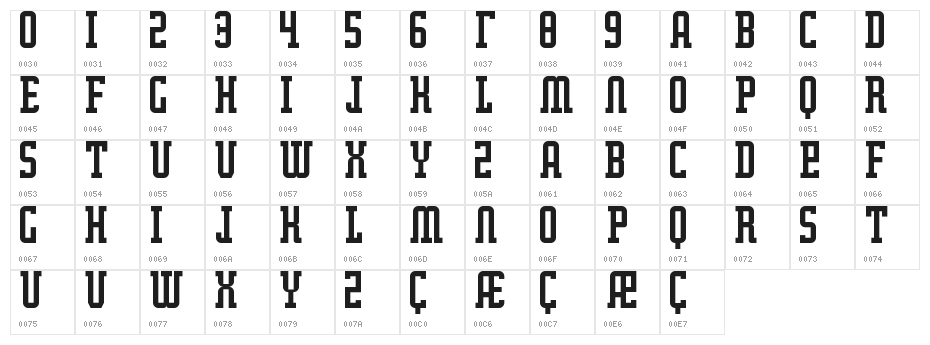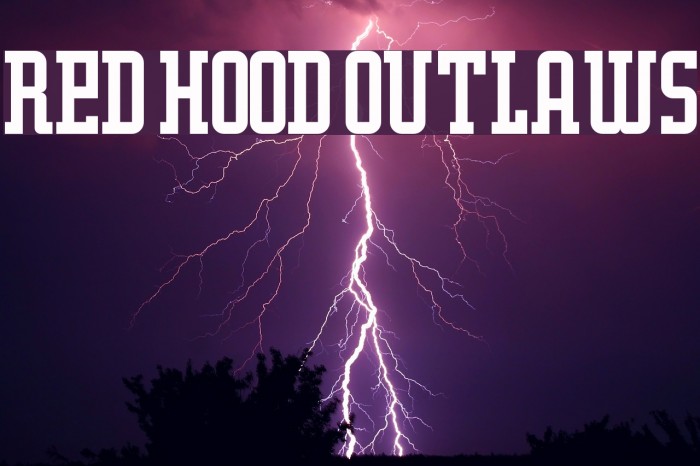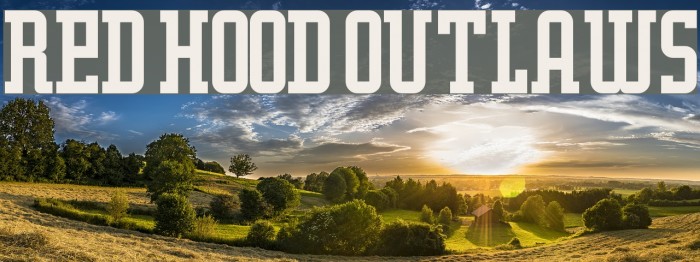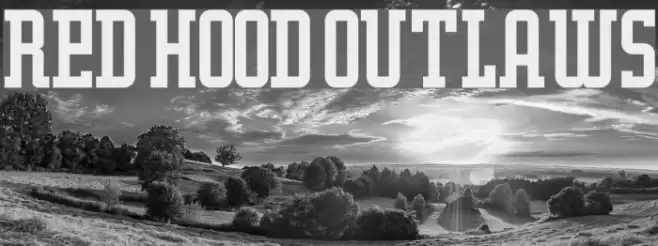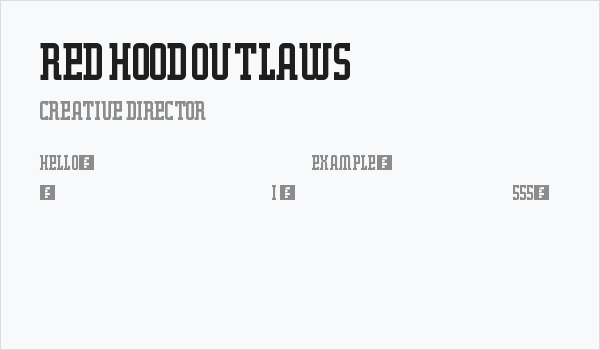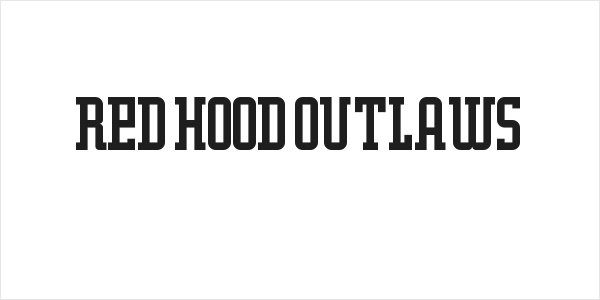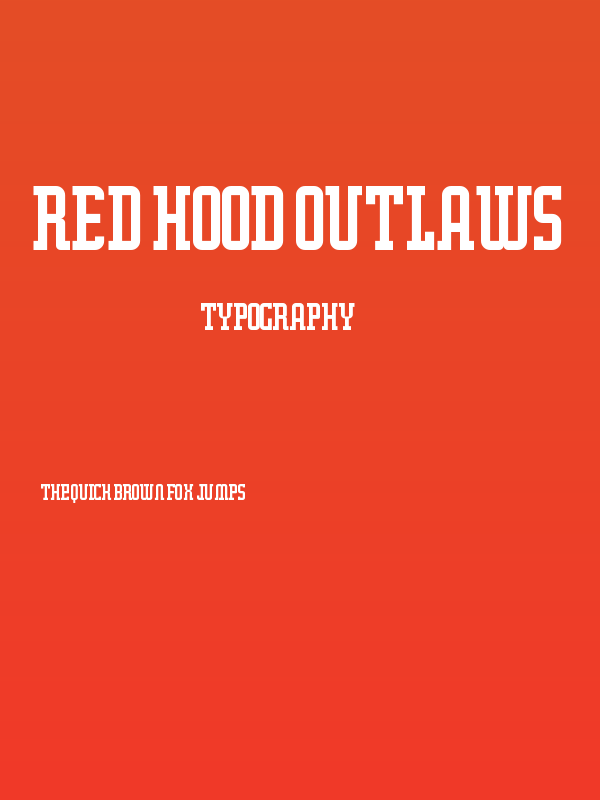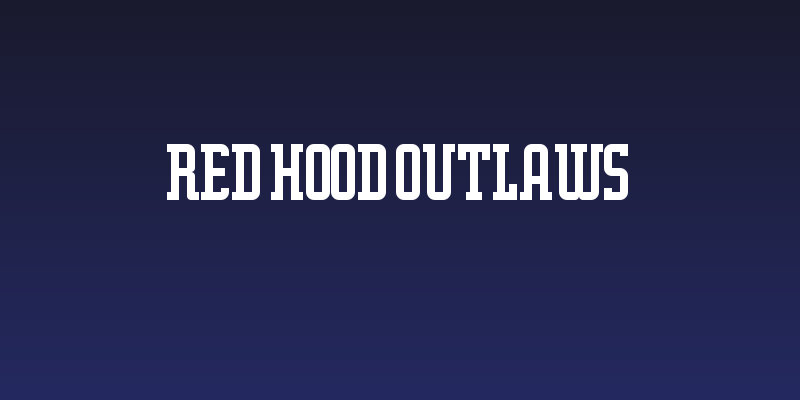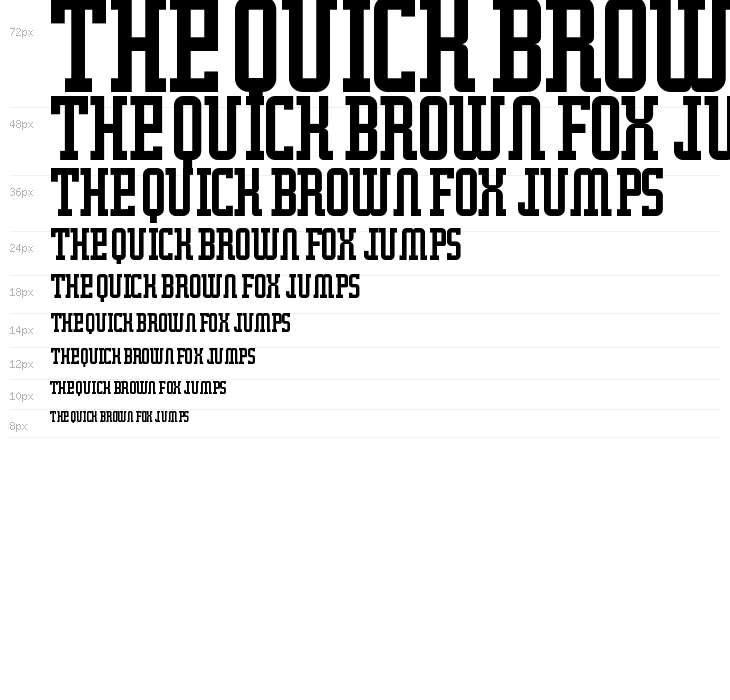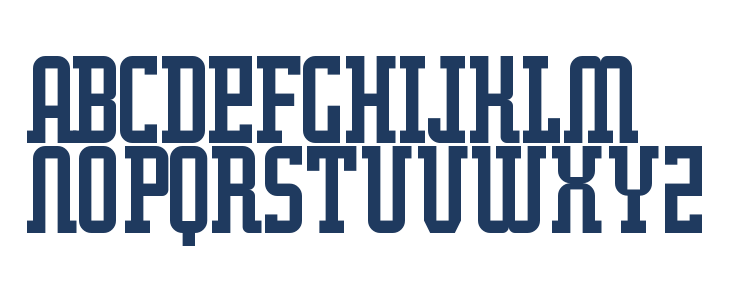
Red Hood Outlaws Font
Red Hood Outlaws Description
This font features a bold and robust design with a strong presence, characterized by its thick, block-like serifs and uniform stroke width. The uppercase letters exhibit a squared-off appearance with minimal curves, giving it a structured and industrial feel. The numbers follow the same design principles, ensuring consistency across all characters. The font's geometric nature and solid construction make it ideal for impactful and attention-grabbing text. Its distinct style is reminiscent of vintage signage and posters, offering a sense of nostalgia while maintaining a modern edge.
| Overall Style | Vintage, Industrial |
| Proposed Projects | Ideal for posters, signage, branding, and any project requiring a strong, impactful typeface. |